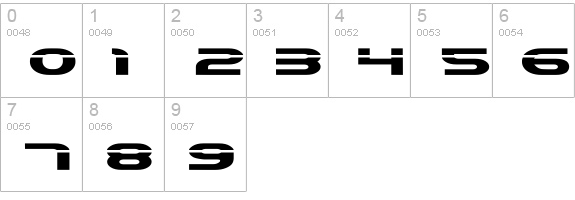
Laserian Font Details
Laserian font is a modern and stylish typeface that is perfect for adding a touch of sophistication to any design project. With its sleek lines and elegant curves, this font exudes a sense of professionalism and class. Whether you're creating a logo, designing a website, or crafting a print advertisement, Laserian font will elevate your work to the next level. But what sets Laserian font apart from other fonts on the market is that it's not only stunningly beautiful, but also completely free. Yes, you read that right. Laserian font is freely available to download at FontsMarket.com, making it accessible to designers of all backgrounds and budgets. Gone are the days of breaking the bank to get your hands on high-quality fonts. By choosing Laserian font, you're not only getting a visually striking typeface, but also a versatile tool that can be used across a wide range of design projects. Its clean and clear letterforms ensure readability, while its unique personality adds a touch of uniqueness to your creations. Whether you're going for a formal and professional look or a more playful and whimsical vibe, Laserian font can adapt to your needs effortlessly. In addition to its aesthetic appeal, Laserian font is also highly functional. It comes in a variety of weights and styles, allowing you to mix and match to create the perfect combination for your project. Whether you need a bold headline or a subtle body text, Laserian font has got you covered. So why wait? Experience the beauty and versatility of Laserian font today. Download it for free at FontsMarket.com and unlock a world of design possibilities. From branding to packaging, from web design to print materials, Laserian font will be your go-to choice for all your typographic needs. Don't miss out on this incredible opportunity to enhance your work with a high-quality, freely available font.